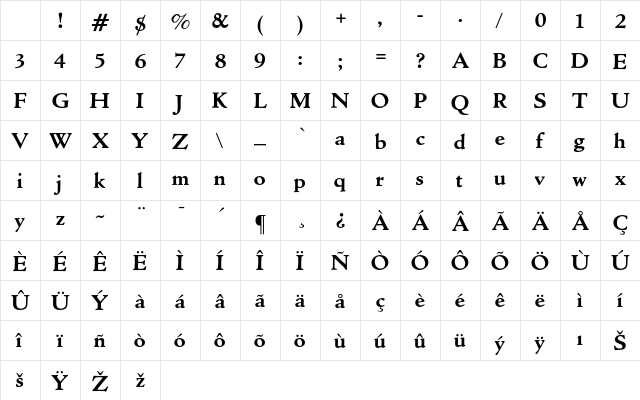
Complete Cloister BoldRoman glyph index. Displaying only characters natively supported by Cloister BoldRoman font.
Cloister is a composed and adaptable typeface that performs quietly and consistently across a wide range of design contexts. Its bold stroke weight gives it real presence on the page.